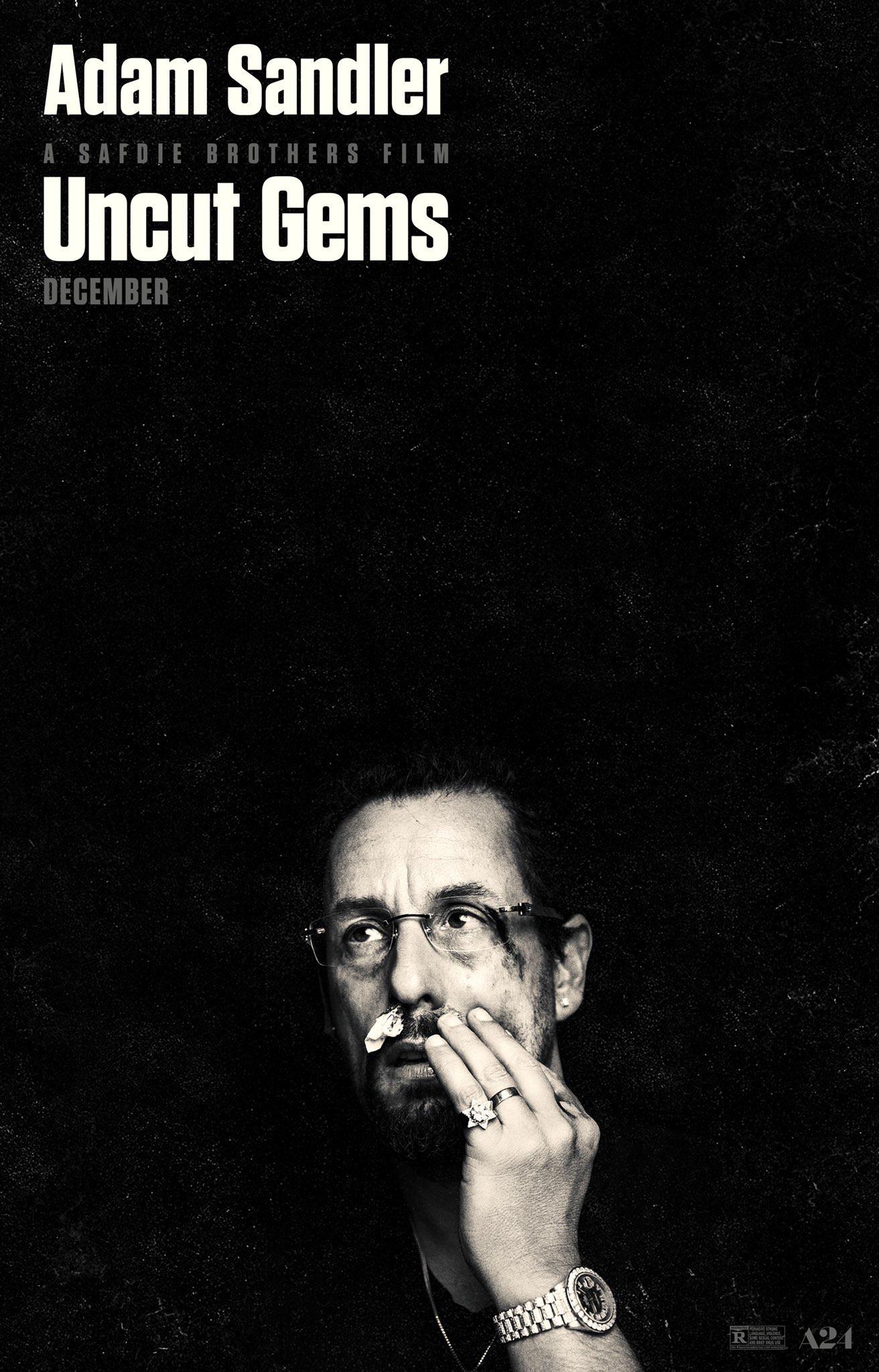
Uncut Gems Font
CrimeUncut Gems is a 2019 crime thriller film about a New York City jeweler who gets caught up in a dangerous gambling addiction, leading to a series of high-stakes situations. The film stars Adam Sandler and is directed by the Safdie brothers.
The font on the poster appears to be Tungsten Bold, a condensed sans serif typeface released by Hoefler&Co in 2009. More information about the Tungsten font family is available here.